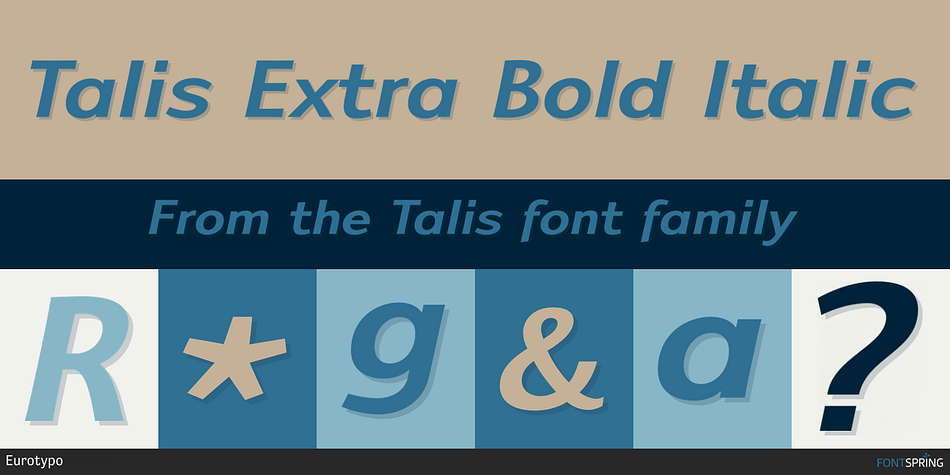
Talis Extra Bold Italic
Designed by Olcar Alcaide, Talis is a sans serif font family. This typeface has thirty styles and was published by Eurotypo.
Talis family has a total of 30 fonts, running from Thin Semi-Conensed to ExtraBlack SemiExpanded, all weights have their companion of italic font.
The flexibility of Talis Family can be appreciated in the extensive choice of widths and weights.
Normal:  Thin / ExtraLight / Light /Regular /Bold /ExtraBold /Heavy /Black /ExtraBlack
C:  Thin Condensed.
SC Semi-Condensed: ExtraLight /Regular /Bold /Heavy.
SE Semi-Expanded: ExtraBlack .
The typeface is characterized by it large x-height, the use of short ascenders and descenders without eccentricities.  Some contrast in the thickness of the letter strokes is translated in sensitive forms. His strokes are slightly curved that suggest a natural growth. This subtle curvature of the stems gives also to the letter shape something of an organic character.
Texts set in Talis fonts in different languages can maintain the same visual appearance and good legibility. All fonts have central European languages support.
Some OpenType features included in this family are standard ligatures, discretional ligatures. Case-sensitive forms. Old style numerals. Tabular figures. Numerators and denominators.